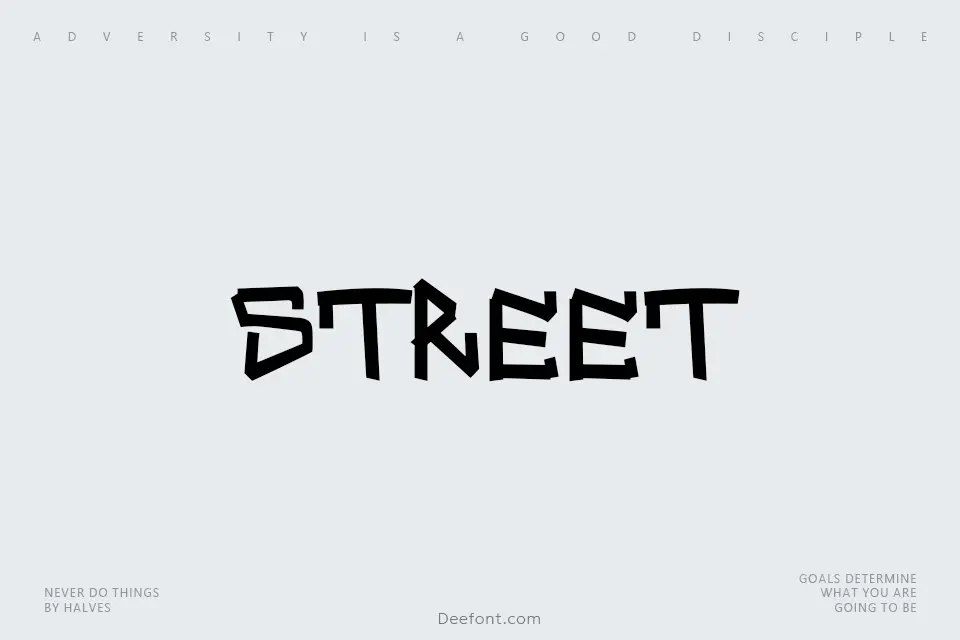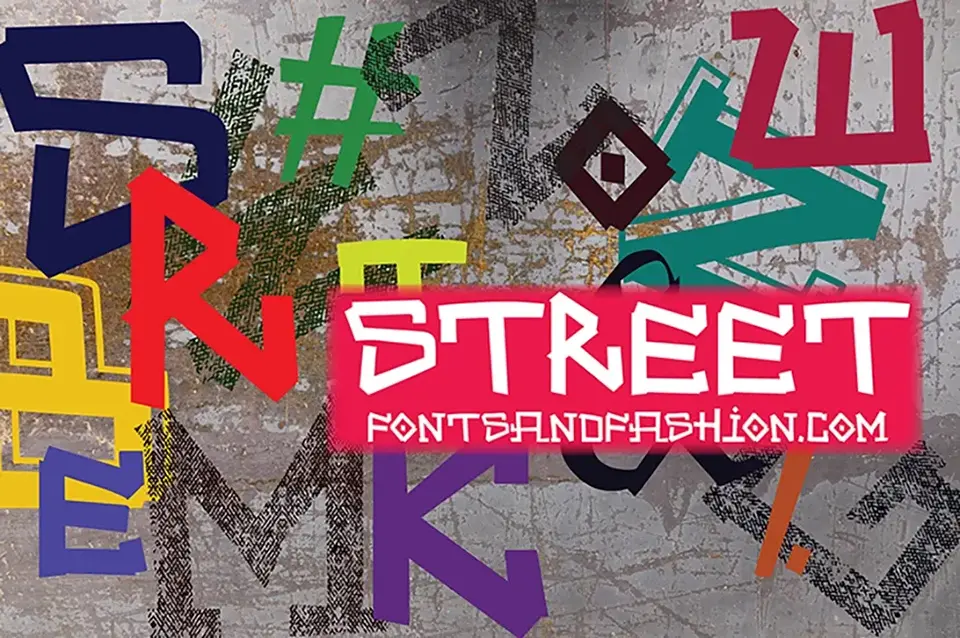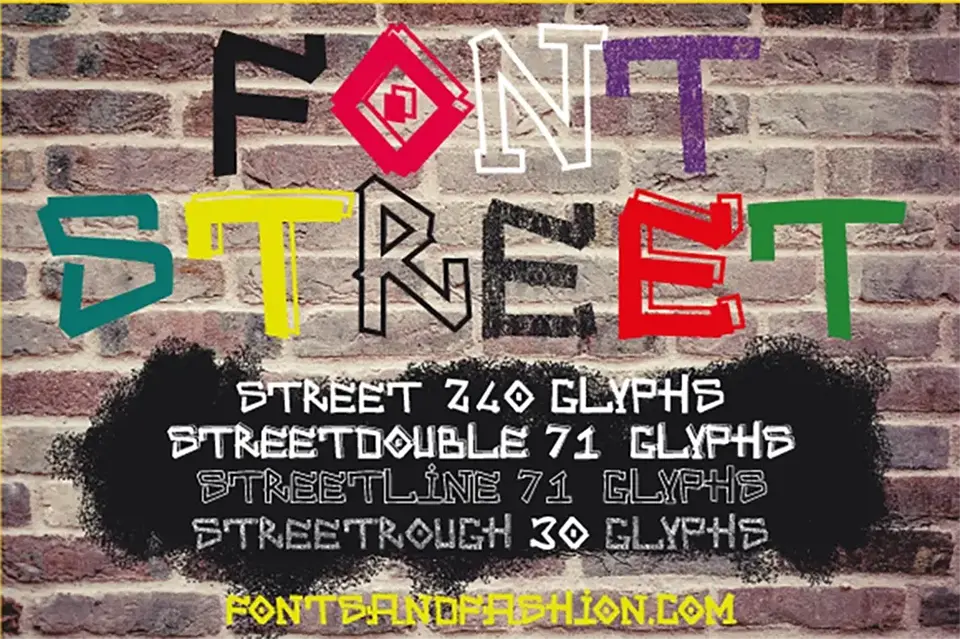
Street Font
Street is a bold and expressive display font inspired by urban street art and graffiti culture. Born from an artistic expression that takes shape in public spaces on walls and streets, this font features a singular personality with strong visual impact. Perfect for designs including t-shirts, sportswear, logos, advertisements, and creative branding projects seeking an energetic urban aesthetic.